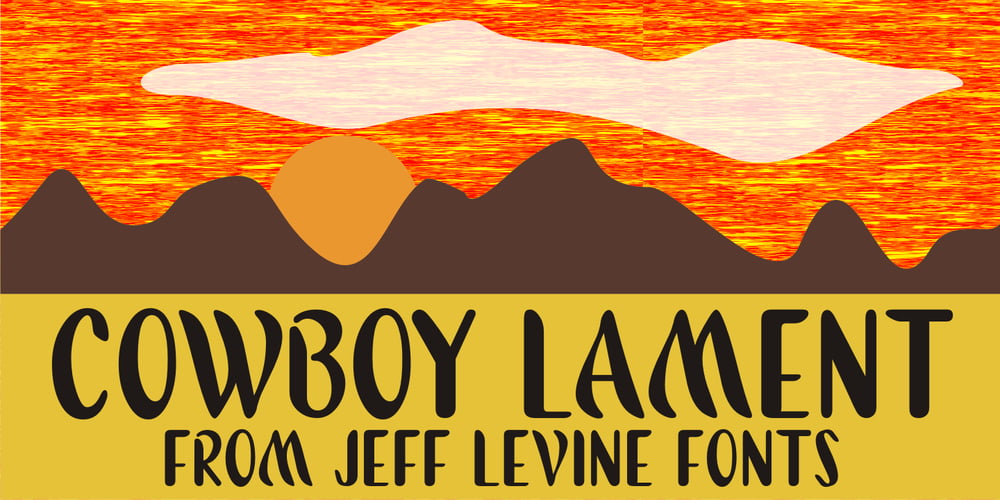
Cowboy Lament JNL Font Family was designed by Jeff Levine and published by Jeff Levine. Cowboy Lament JNL contains 1 styles and family package options. A lament is a sad song, and the music of the cowboys of the Old West had their fair share of them. However, a vintage piece of sheet music from the early part of the 20th century with the title “The Dying Cowboy” brought at least one positive trait to its mournful song. The title lettering was drawn in a fashion that emulated lettering made with quick strokes of a paintbrush, and became the inspiration for Cowboy Lament JNL.